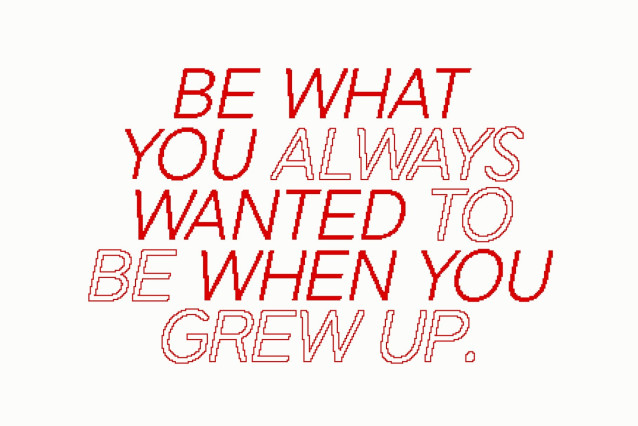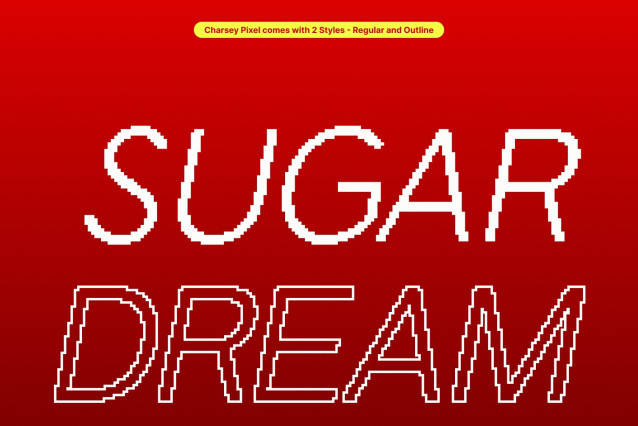
Charsey Pixel Font
Charsey Pixel Font – This is a modern sans serif font designed for professional and corporate use, combining clean, minimal letterforms with subtle pixel detailing. This fusion creates a contemporary look that feels precise, digital, and refined, making it ideal for projects that demand clarity and modern sophistication.
Clean, Versatile, and Contemporary
With its balanced proportions and straightforward structure, this font adapts effortlessly to a wide range of design contexts. From branding and editorial layouts to advertising and digital interfaces, its simplicity ensures excellent readability while the pixel touch adds a discreet modern character.
Professional Impact Across Media
This font prioritizes professionalism and visual consistency. Whether used in print or digital media, it delivers a polished and confident impression. The pixel-enhanced design subtly reinforces its suitability for technology-driven environments, corporate communication, and modern visual systems.
Perfect Choice for Corporate Design
Ideal for corporate logos, promotional materials, presentations, and websites, this font offers a reliable typographic solution for modern brands. Its clean sans serif foundation combined with pixel precision ensures your designs remain professional, contemporary, and visually cohesive strengthening brand identity with simplicity and elegance.